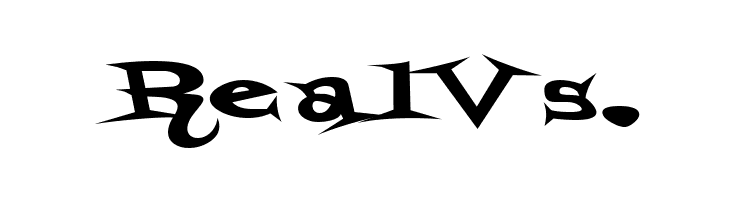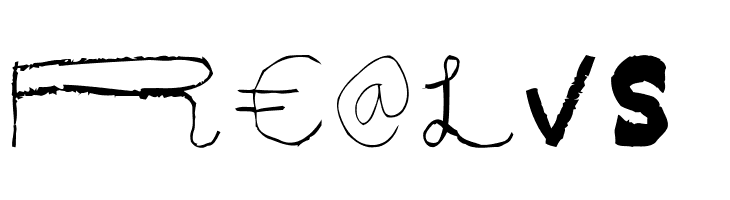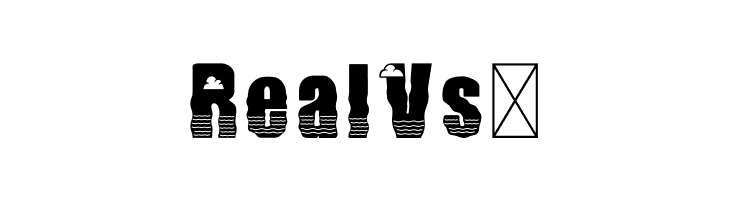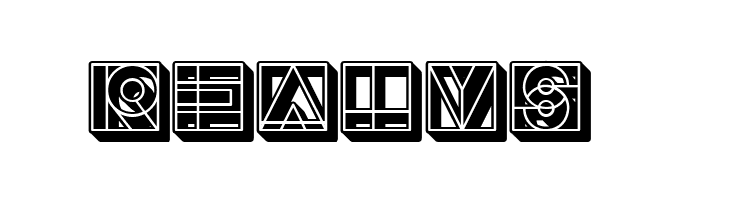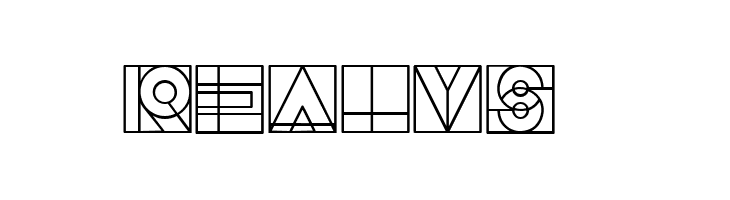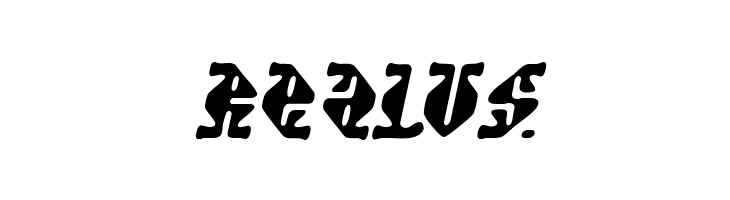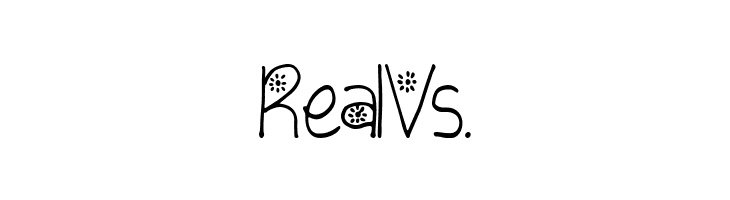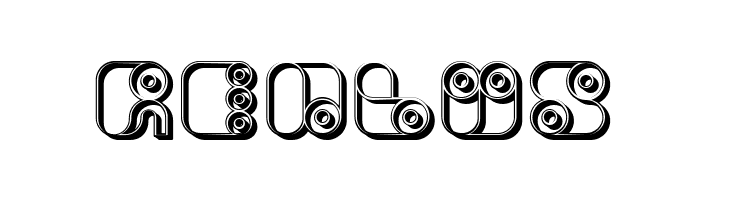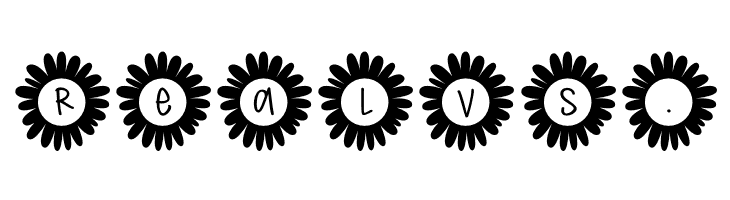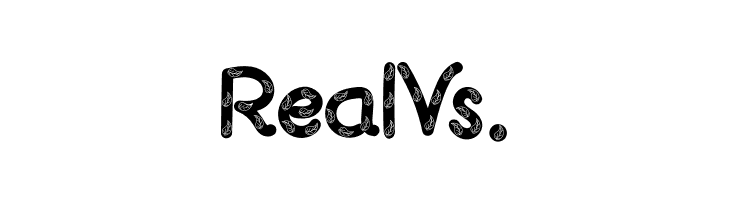
A playful, decorative font with a ruler-like pattern and hand-drawn aesthetic.
A bold, star-patterned decorative font with playful, outlined characters.
Playful, hand-drawn decorative font with striped patterns.
A bold, decorative font with intricate, hand-drawn patterns inside each character.
A bold, geometric display font with high contrast and abstract shapes.
A bold, geometric 3D font with intricate line patterns.
A geometric and decorative font with a modern, architectural style.
A modern, geometric font with playful hook-like elements and contrasting strokes.
A whimsical decorative font with floral elements integrated into each character.
A playful, nature-inspired decorative font with bold, rounded letters filled with leaf patterns.
A decorative font with characters encased in sunflower designs, offering a playful and whimsical style.
A playful, retro-inspired font with bold, rounded characters and spiral details.
A playful, hand-drawn font with boxed letters and sketch-like strokes.
A bold, textured font with a mosaic-like design, perfect for artistic projects.
Celestial-themed dingbat font with sun and moon icons.
A bold serif font with intricate floral patterns integrated into each character.
Decorative font with characters inside sunflower designs.
Decorative sunflower-themed font.
A decorative and eclectic font with playful, artistic character designs.
A bold, decorative font with playful patterns and a lively style.
A playful, beach-themed decorative font with bold, textured characters.
A playful, bold font with characters inside circles, offering a modern and fun style.
A playful, decorative font with sunburst patterns in each character.
A bold, geometric font with dynamic angles and high contrast.
A bold, geometric font with a 3D effect and diagonal line texture.
A bold, decorative font with a playful striped pattern.